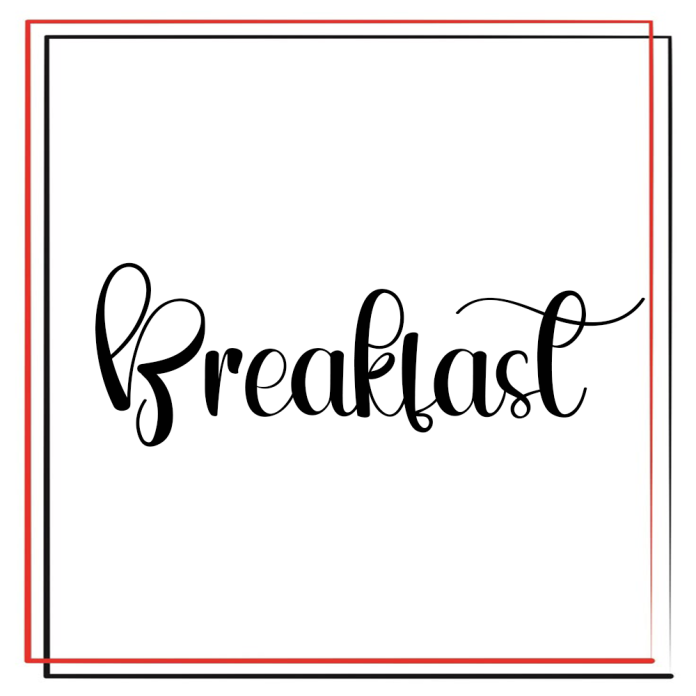
Breakfast Font is a cute and casual handwritten font with an incredibly friendly feel. Whether you’re looking for fonts for Instagram or calligraphy scripts for DIY projects, this font will turn any creative idea into a true piece of art!